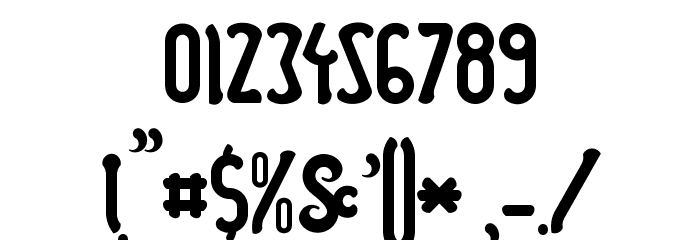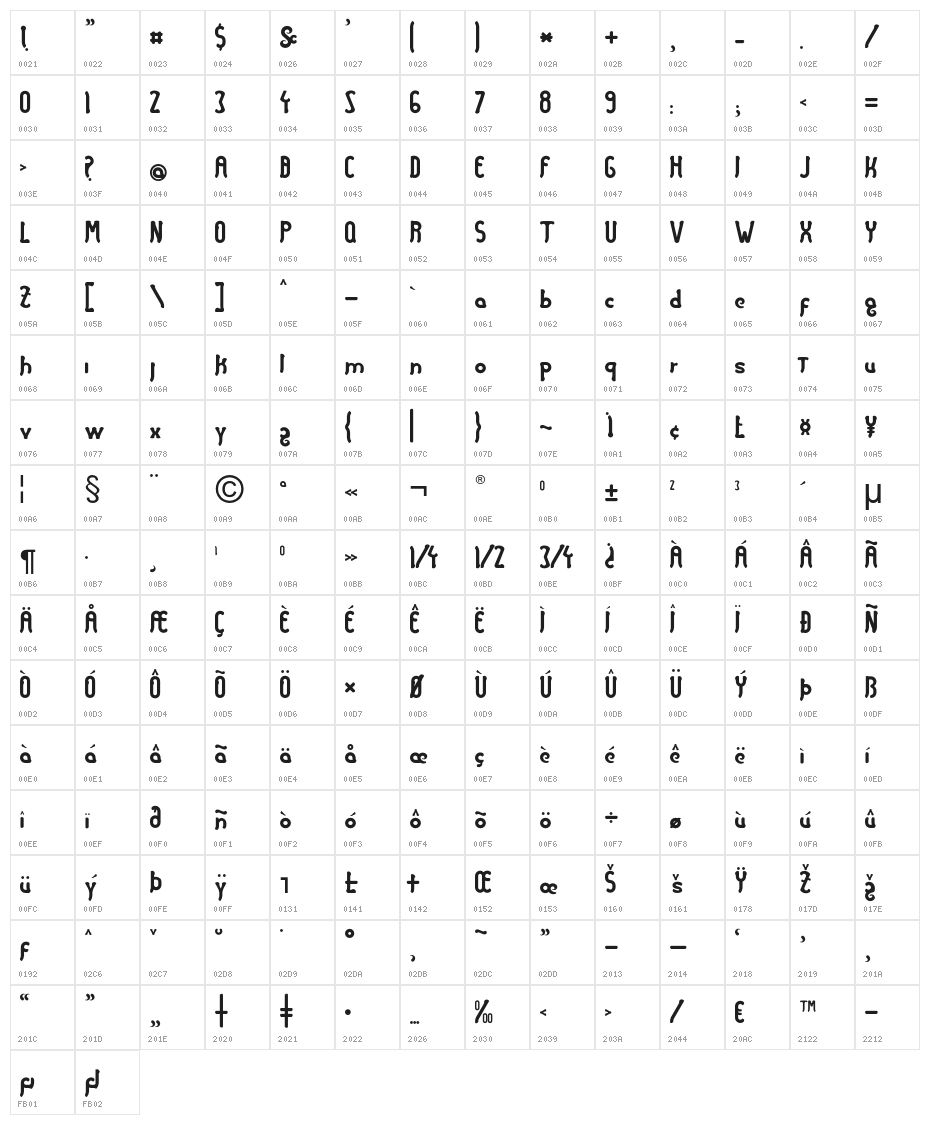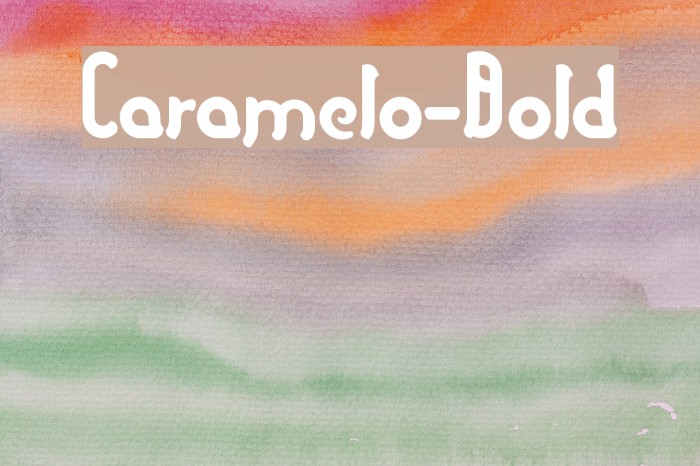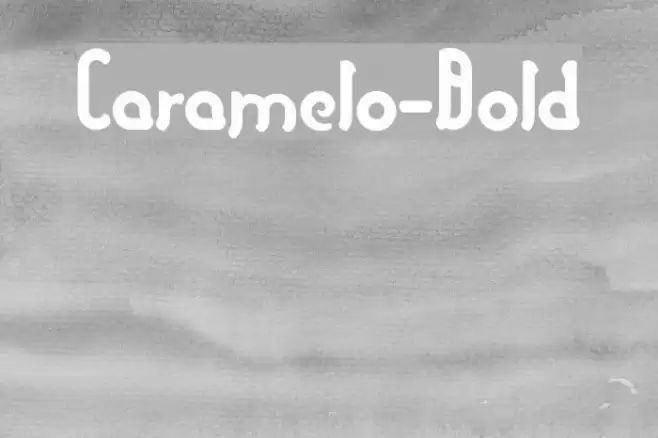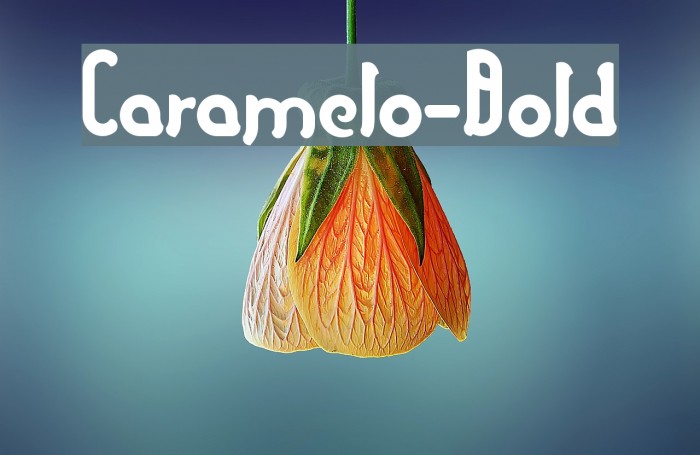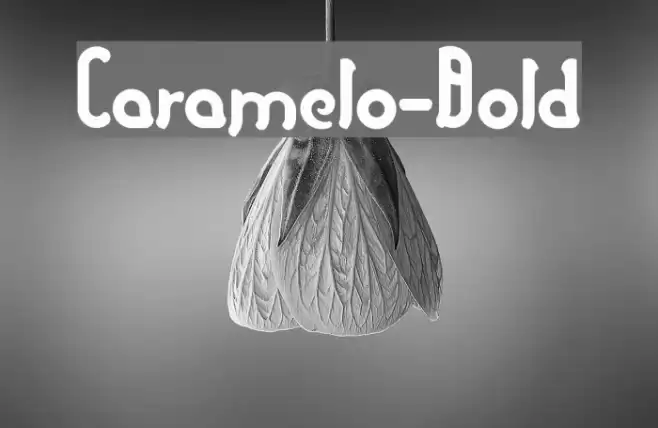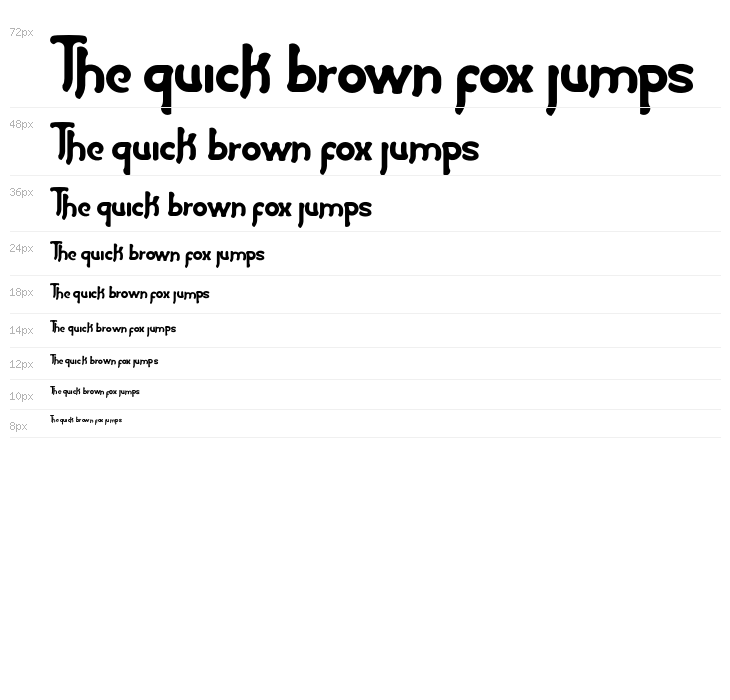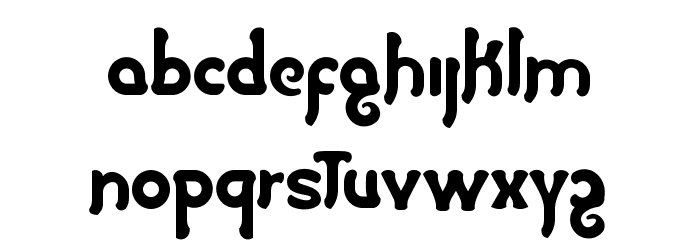
Caramelo-Bold Font
Caramelo-Bold Description
This font features a playful and bold design with rounded edges and a slightly condensed appearance. The characters are thick and have a whimsical, almost cartoon-like quality, making them stand out with a unique personality. The uppercase letters are uniform in height, while the lowercase letters maintain a consistent baseline, adding to the cohesive look. Numbers and special characters follow the same bold and rounded style, ensuring a harmonious appearance across all text. The overall design is both eye-catching and approachable, suitable for a variety of creative applications.